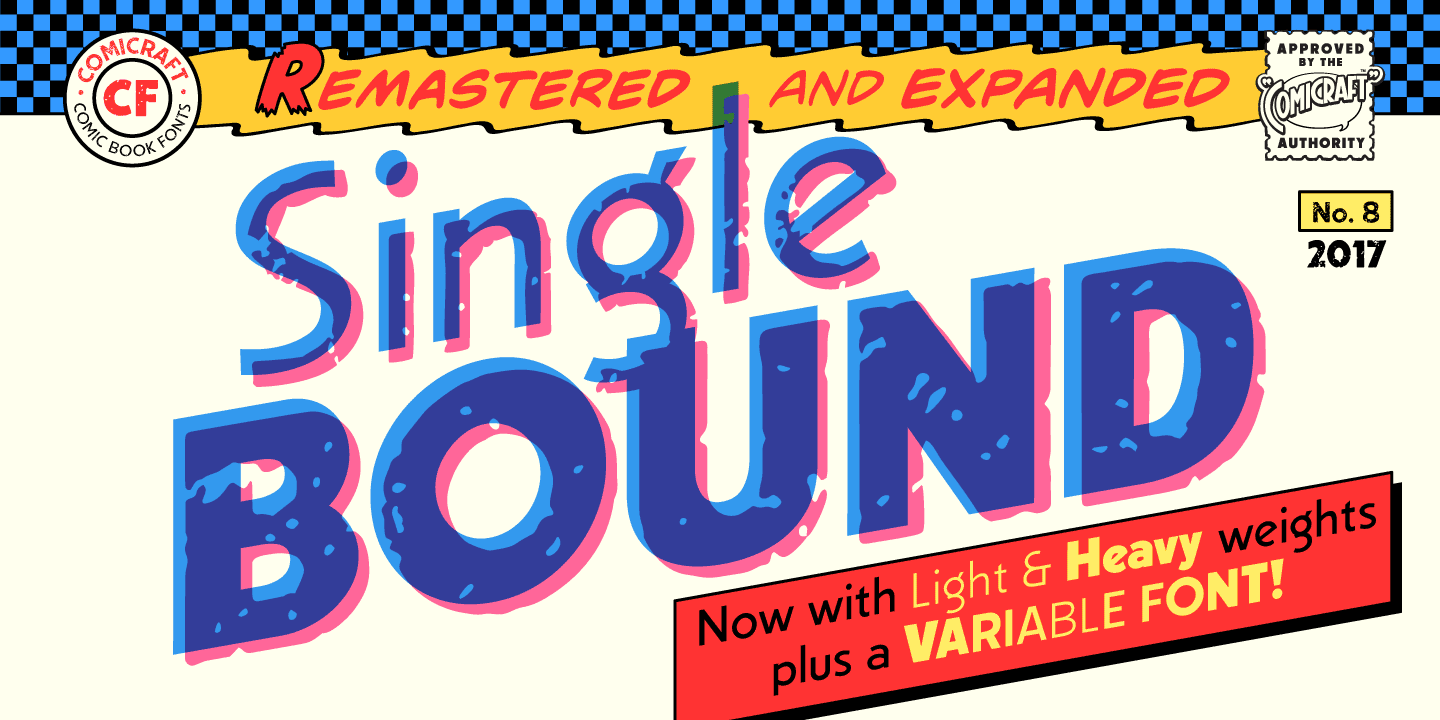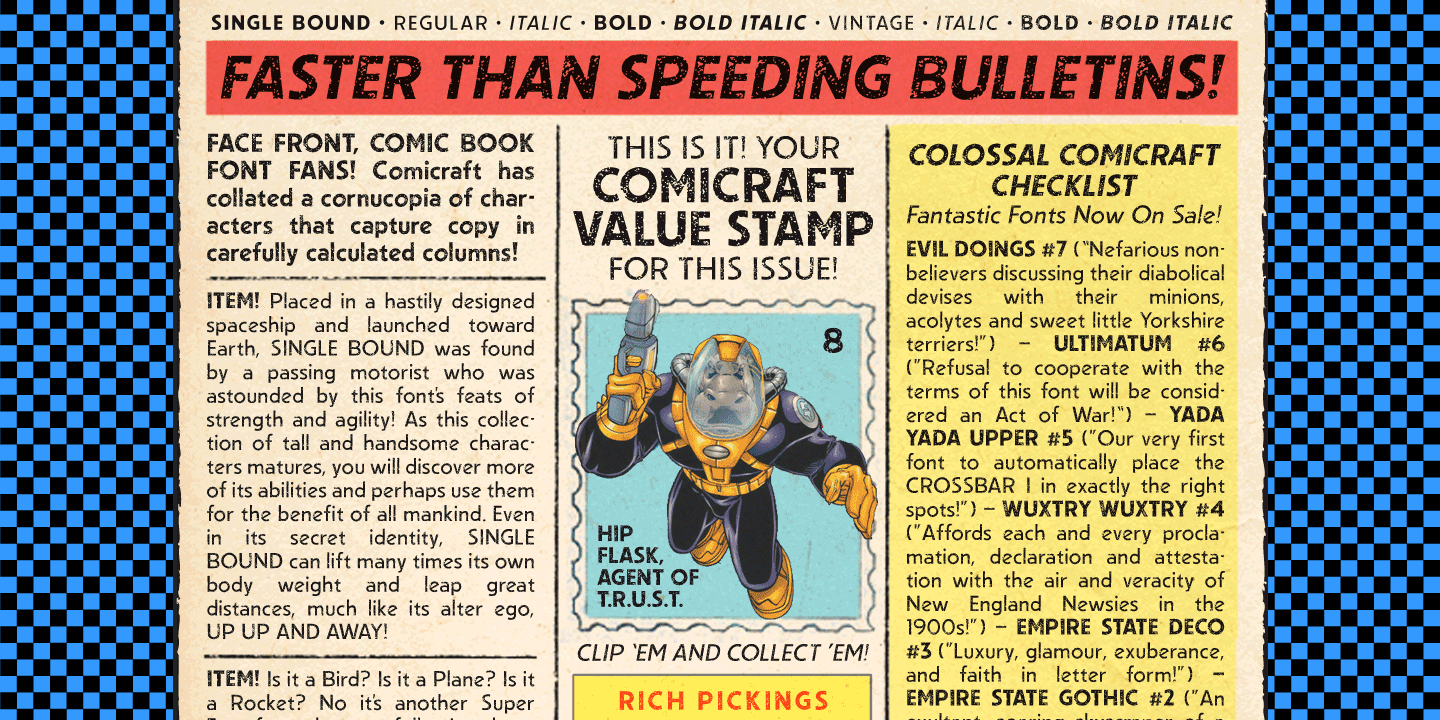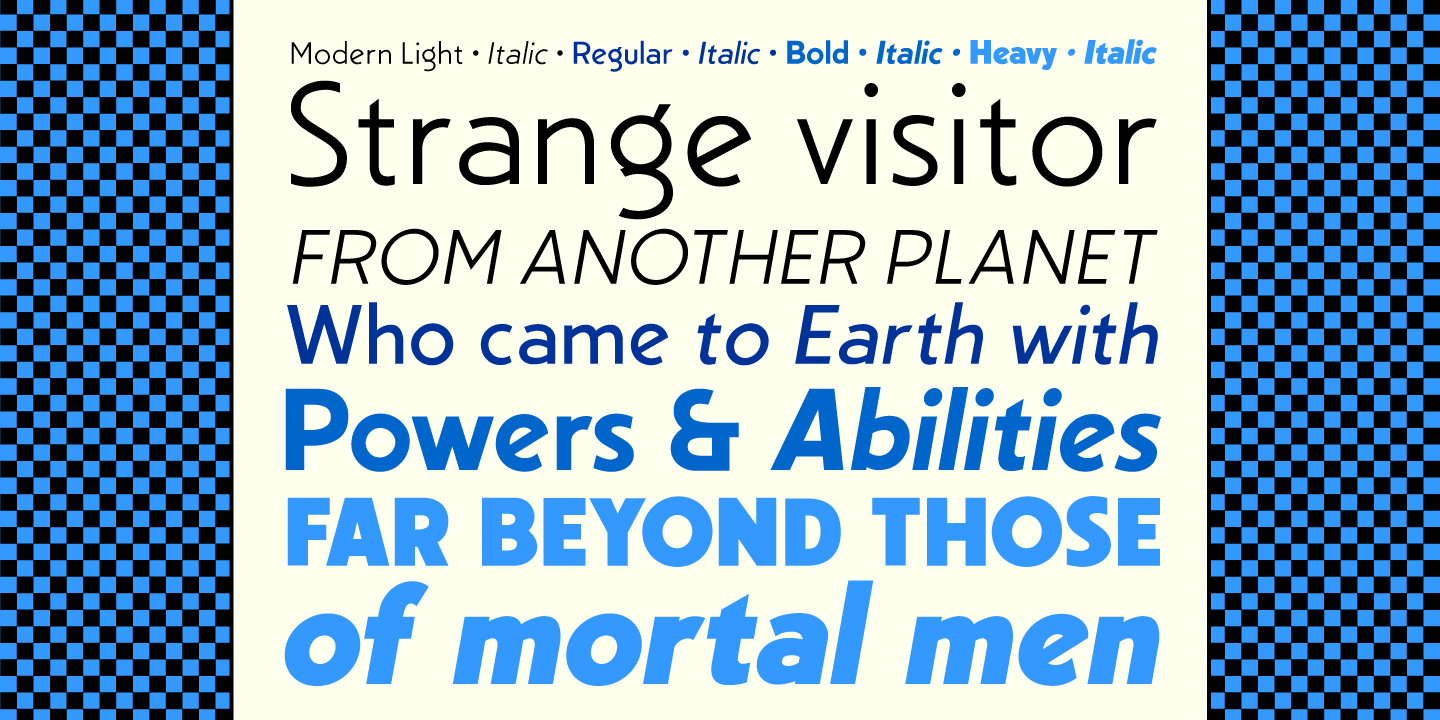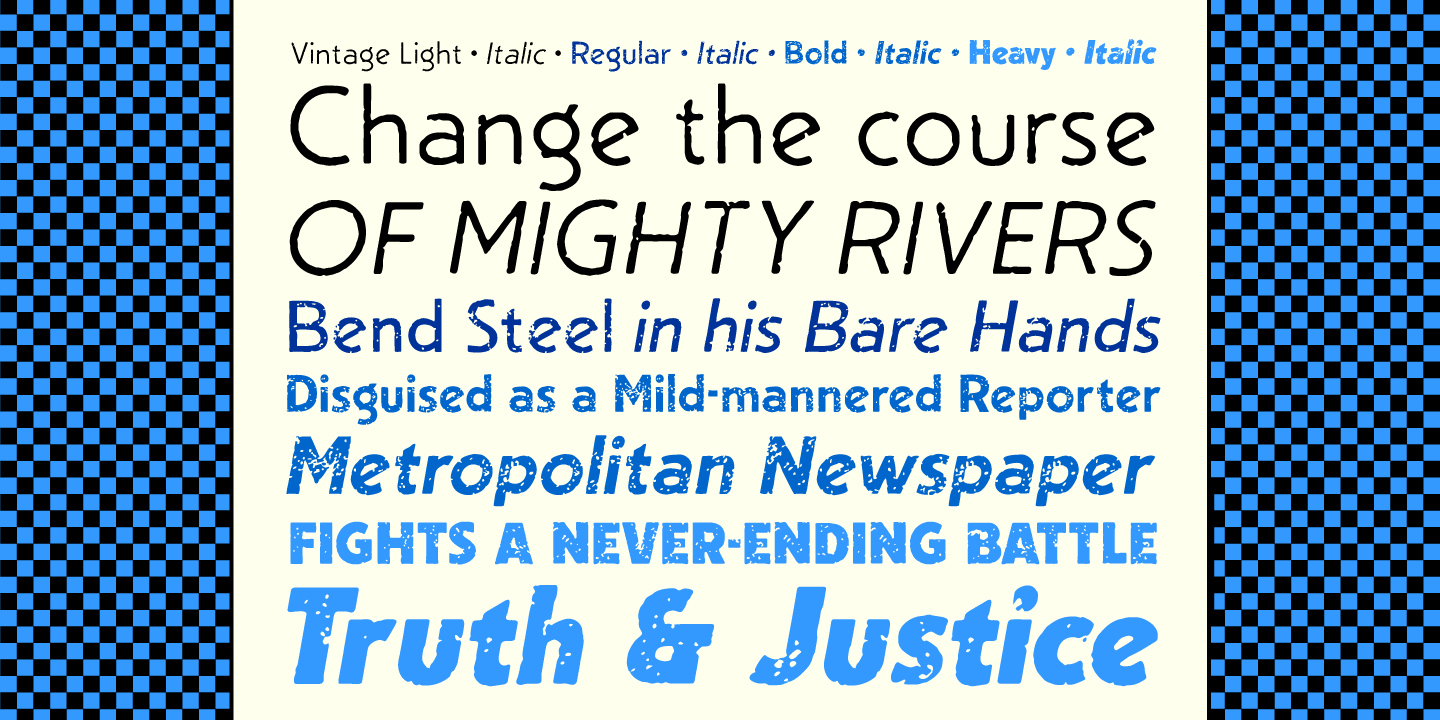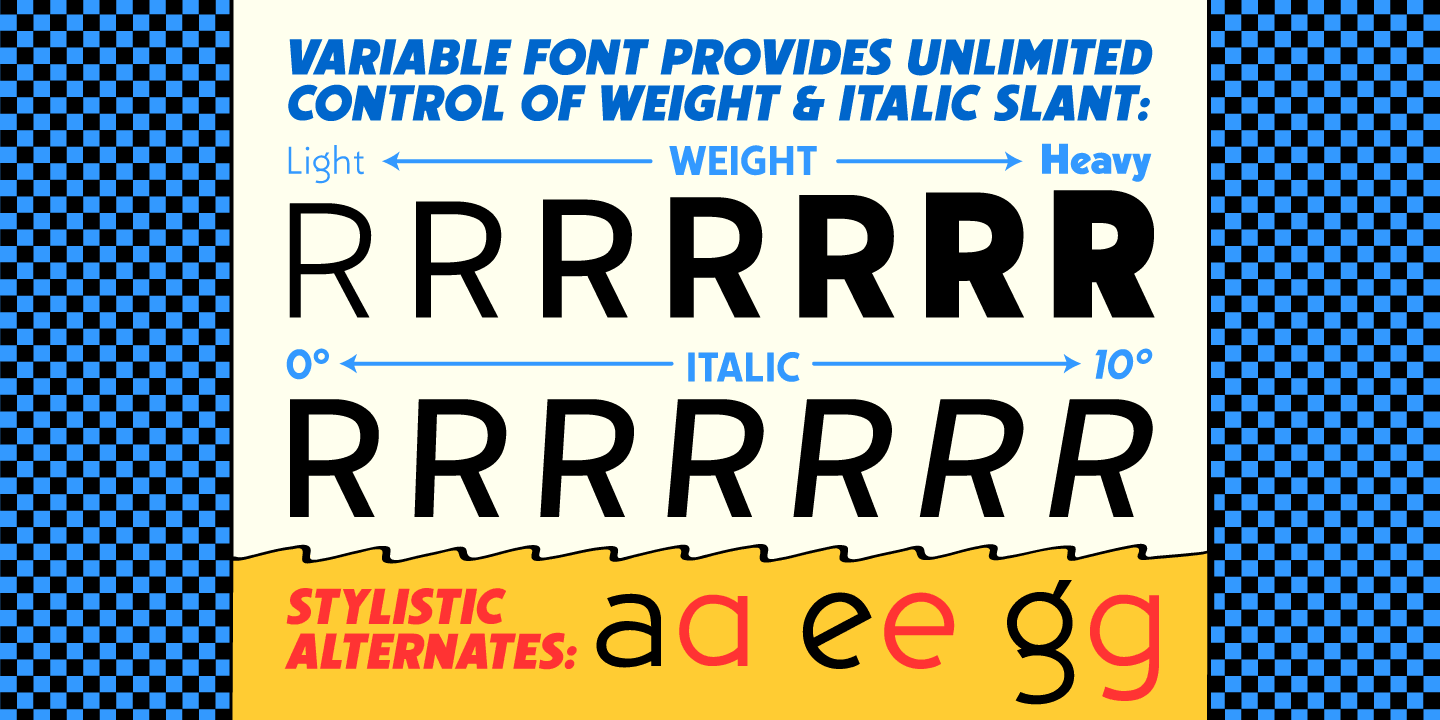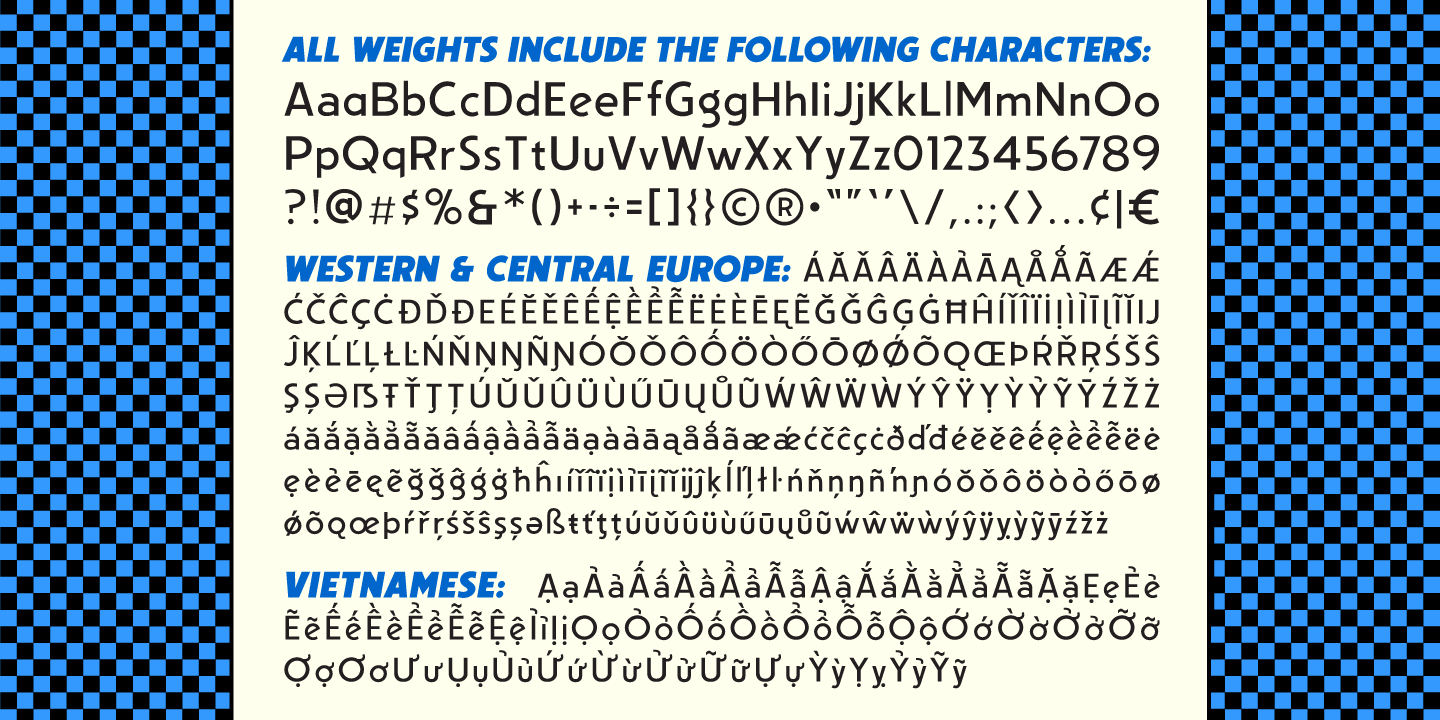
About the Single Bound Font
About Single Bound Font Family Placed in a hastily designed spaceship and launched toward Earth, SINGLE BOUND was found by a passing motorist who was astounded by this font’s feats of strength and agility! As this collection of tall and handsome characters matures, you will discover more of its abilities and perhaps use them for the benefit of all mankind.
Even in its secret identity, SINGLE BOUND can lift many times its own body weight and leap great distances, much like its alter ego, UP UP AND AWAY! Single Bound includes weights from Light to Heavy, with clean (“modern”) and worn (“vintage”) versions, support for Western & Central Europe and Vietnamese, and an available Variable Font for precise control of weight & italic. Designers: John RoshellPublisher: ComicraftFoundry: ComicraftDesign Owner: ComicraftMyFonts debut: May 8, 2018 Single Bound